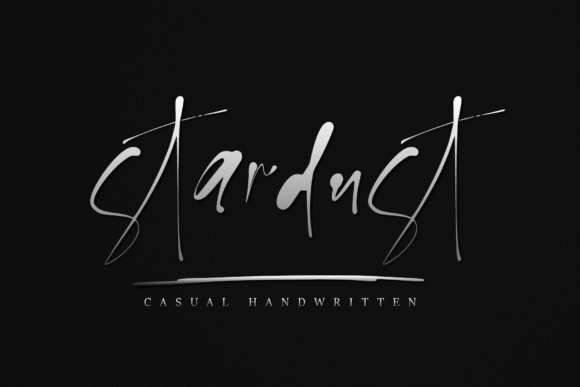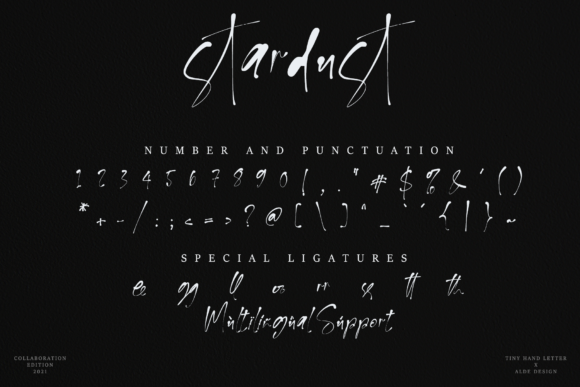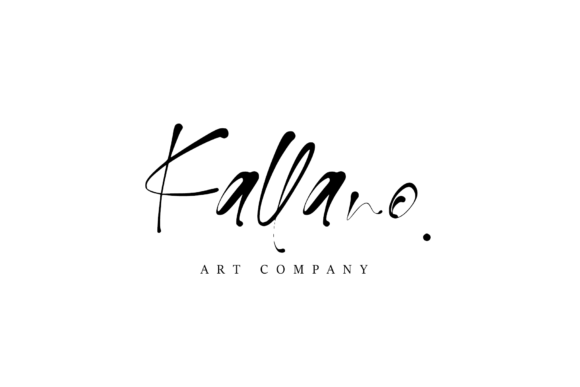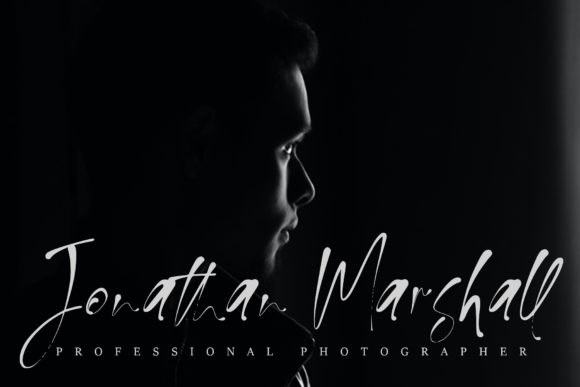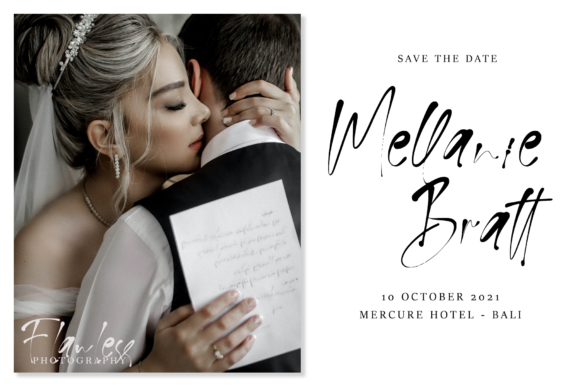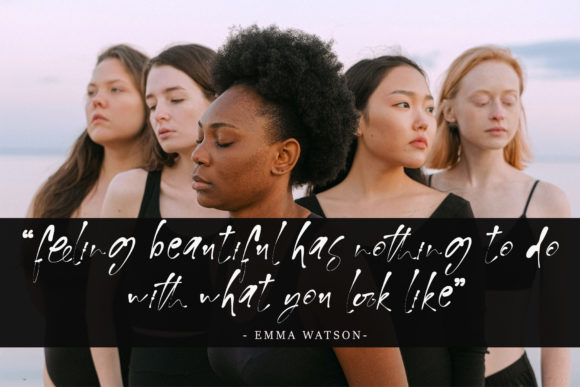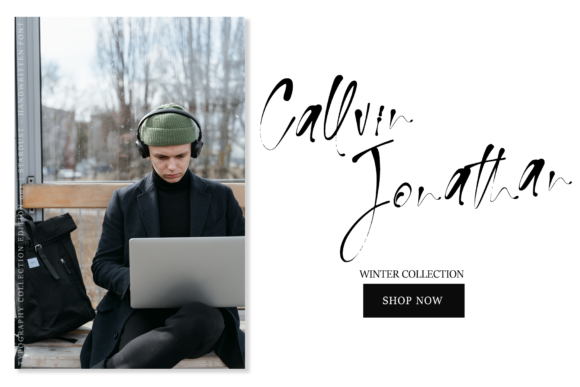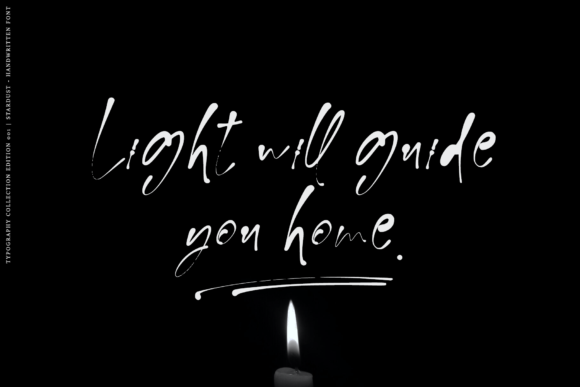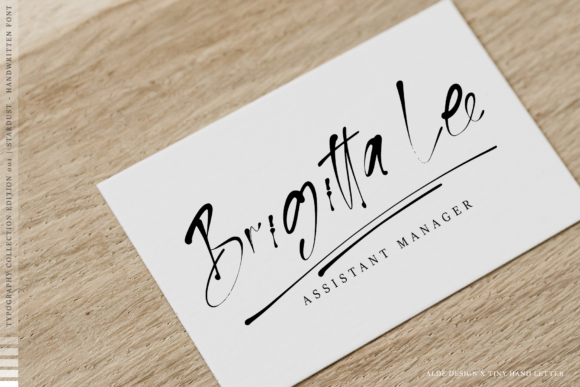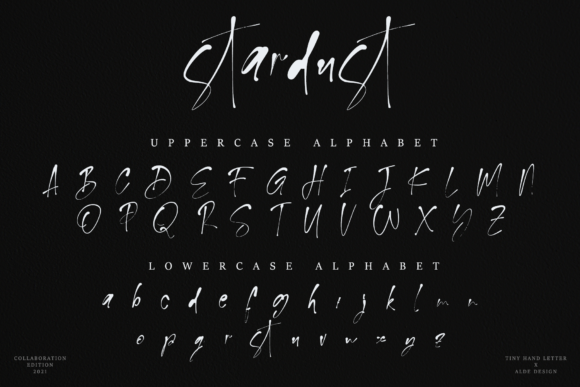
Stardust Font
About Stardust Font
Stardust is a casual handwritten font with stunning underline swashes and ligatures. It looks stunning on wedding invitations, thank you cards, quotes, greeting cards, logos, business cards, and every other design that needs a handwritten touch.